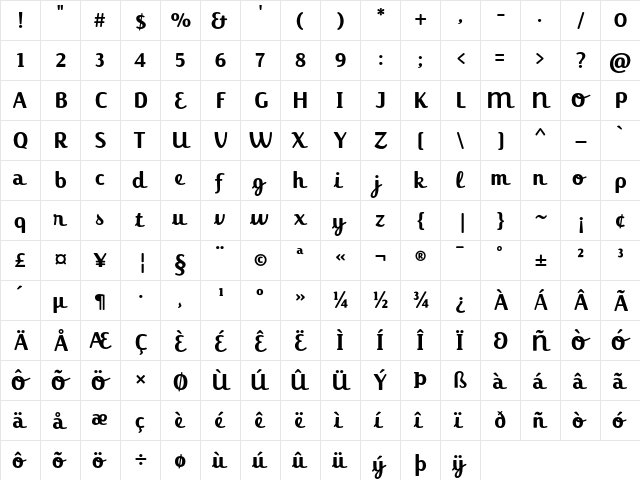
Jackie-Alternate Bold
Design Context for Jackie-Alternate Typeface
Jackie-Alternate is a composed and adaptable typeface that performs quietly and consistently across a wide range of design contexts. The heavy weight commands attention and anchors typographic hierarchies.